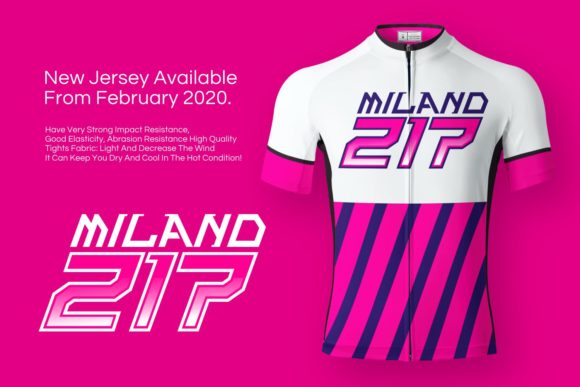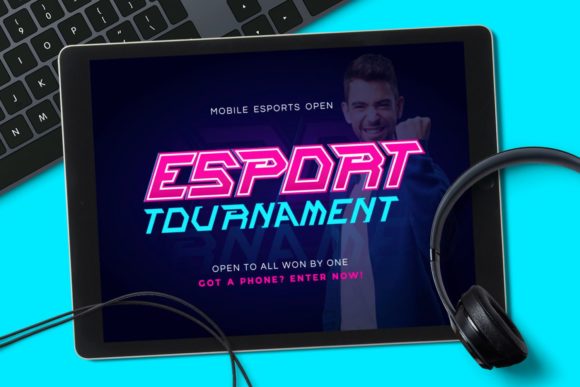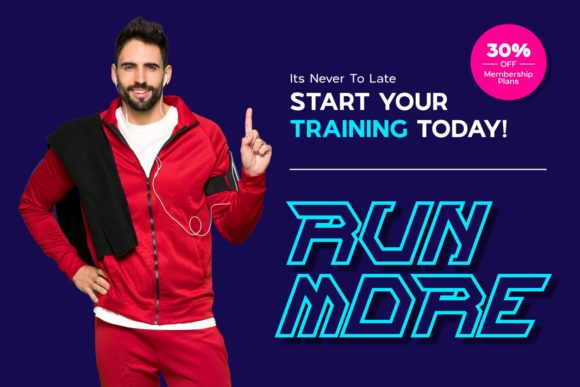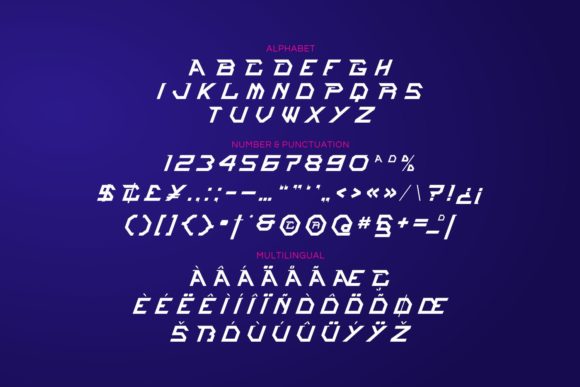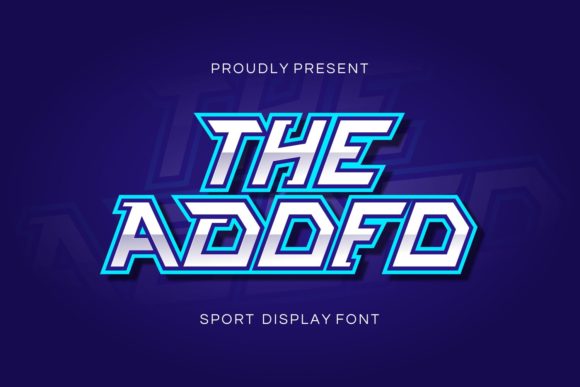
Adofo Font: Elevate Your Designs with a Futuristic Twist
Adofo is a fun display font with a futuristic feel that’s sure to capture your heart and take your projects to new heights. This exciting font is perfect for designers and crafters looking to add a touch of innovation and style to their work. In this article, we’ll dive into the world of Adofo font, exploring its features, benefits, and uses, as well as provide tips on how to make the most of this incredible typeface.
What is Adofo Font?
Adofo is a display font designed to make a statement. Its futuristic feel is characterized by clean lines, geometric shapes, and a sense of dynamism that’s hard to ignore. This font is perfect for projects that require a bold and eye-catching approach, such as logos, headlines, and titles. With Adofo, you can add a touch of sophistication and elegance to your designs while still conveying a sense of innovation and forward-thinking.
Key Features of Adofo Font
• Unique and Futuristic Design: Adofo’s design is unlike anything you’ve seen before. Its futuristic feel is sure to set your projects apart from the crowd.
• Highly Versatile: Adofo is a highly versatile font that can be used in a wide range of projects, from logos and branding to posters and social media graphics.
• Easily Readable: Despite its futuristic feel, Adofo is surprisingly easy to read, making it perfect for use in body text as well as headlines.
• Extensive Character Set: Adofo comes with an extensive character set, including uppercase and lowercase letters, numbers, and punctuation marks.
Benefits of Using Adofo Font
So why should you choose Adofo font for your next project? Here are just a few benefits of using this amazing typeface:
• Adds a Touch of Futurism: Adofo’s futuristic feel is sure to add a touch of innovation and style to your designs.
• Boosts Creativity: With Adofo, you can unleash your creativity and experiment with new and exciting design ideas.
• Perfect for Logos and Branding: Adofo’s unique design makes it perfect for use in logos and branding projects, helping you to establish a strong and memorable visual identity.
Tips for Using Adofo Font
To get the most out of Adofo font, here are a few tips to keep in mind:
• Use it as a Display Font: Adofo is designed to be used as a display font, so use it to add a touch of drama and flair to your headlines and titles.
• Experiment with Colors and Textures: Adofo’s futuristic feel lends itself perfectly to bold and bright colors, as well as interesting textures and patterns.
• Pair it with Other Fonts: Adofo can be paired with a range of other fonts to create a unique and interesting visual effect.
In conclusion, Adofo font is an exciting and innovative typeface that’s sure to take your designs to new heights. With its futuristic feel, highly versatile design, and extensive character set, Adofo is the perfect choice for designers and crafters looking to add a touch of style and sophistication to their work. So why not fall in love with Adofo and bring your projects to the highest levels?
• What is Adofo font?: Adofo is a fun display font with a futuristic feel.
• What is Adofo font used for?: Adofo font is perfect for use in logos, branding, headlines, titles, and other design projects that require a bold and eye-catching approach.
• Is Adofo font easy to read?: Yes, Adofo font is surprisingly easy to read, making it perfect for use in body text as well as headlines.